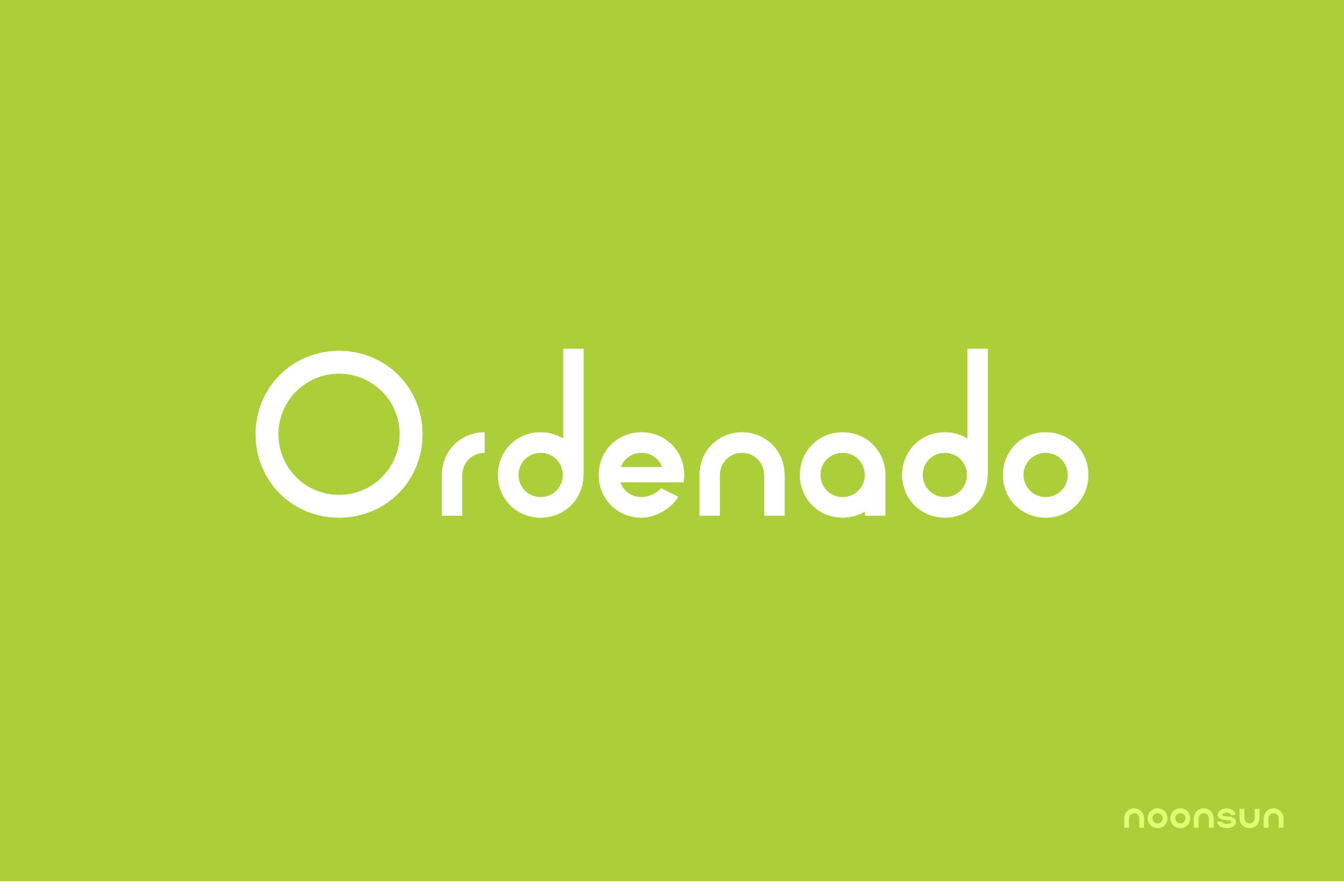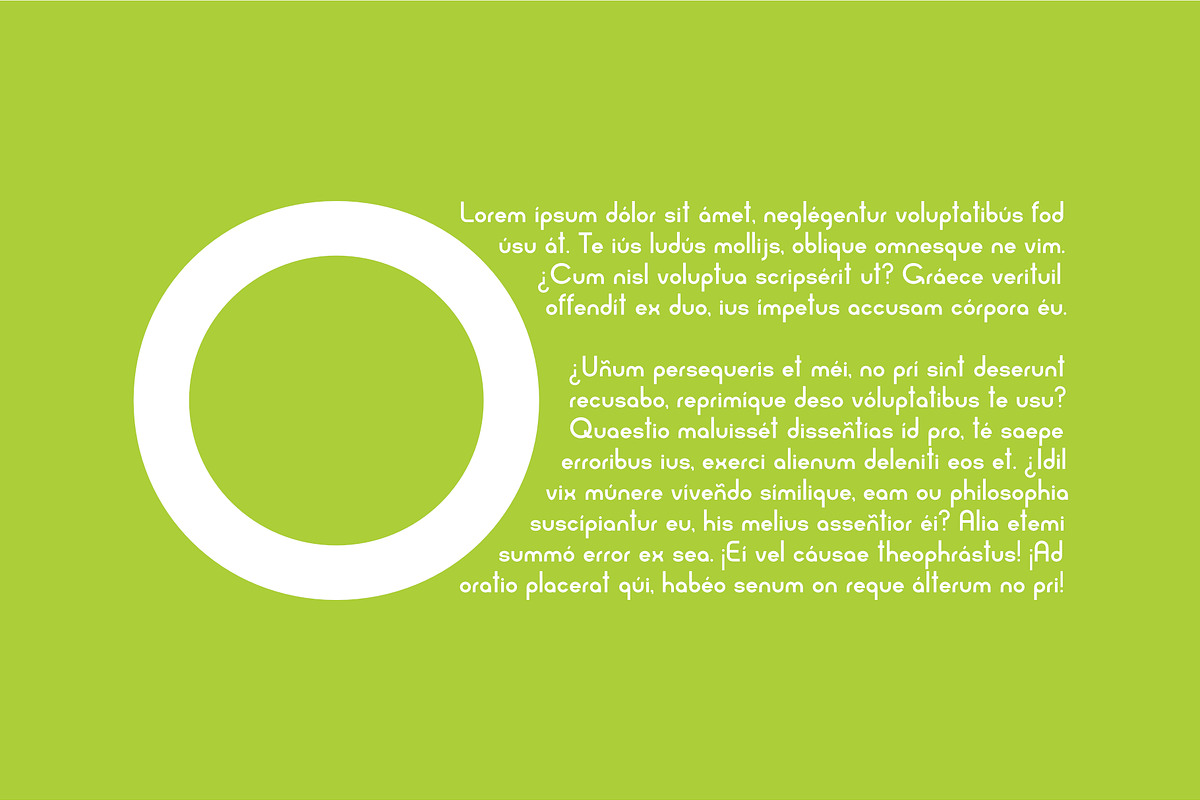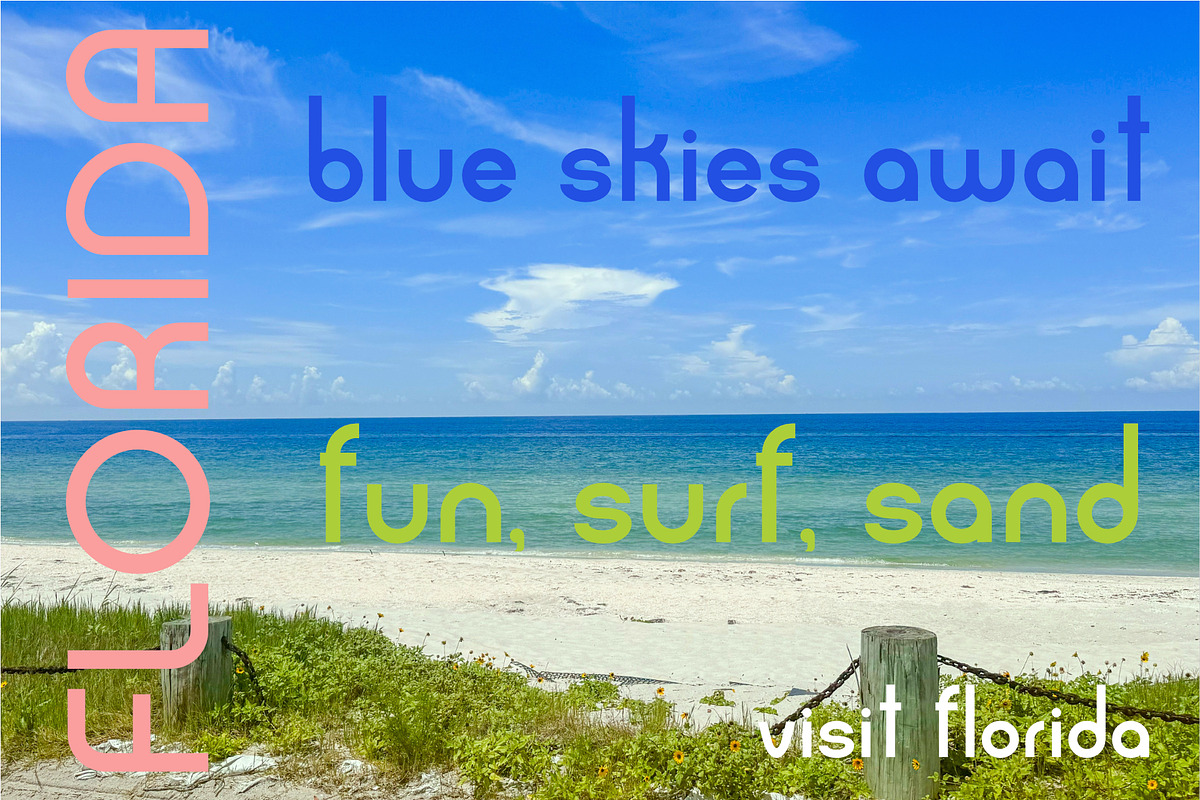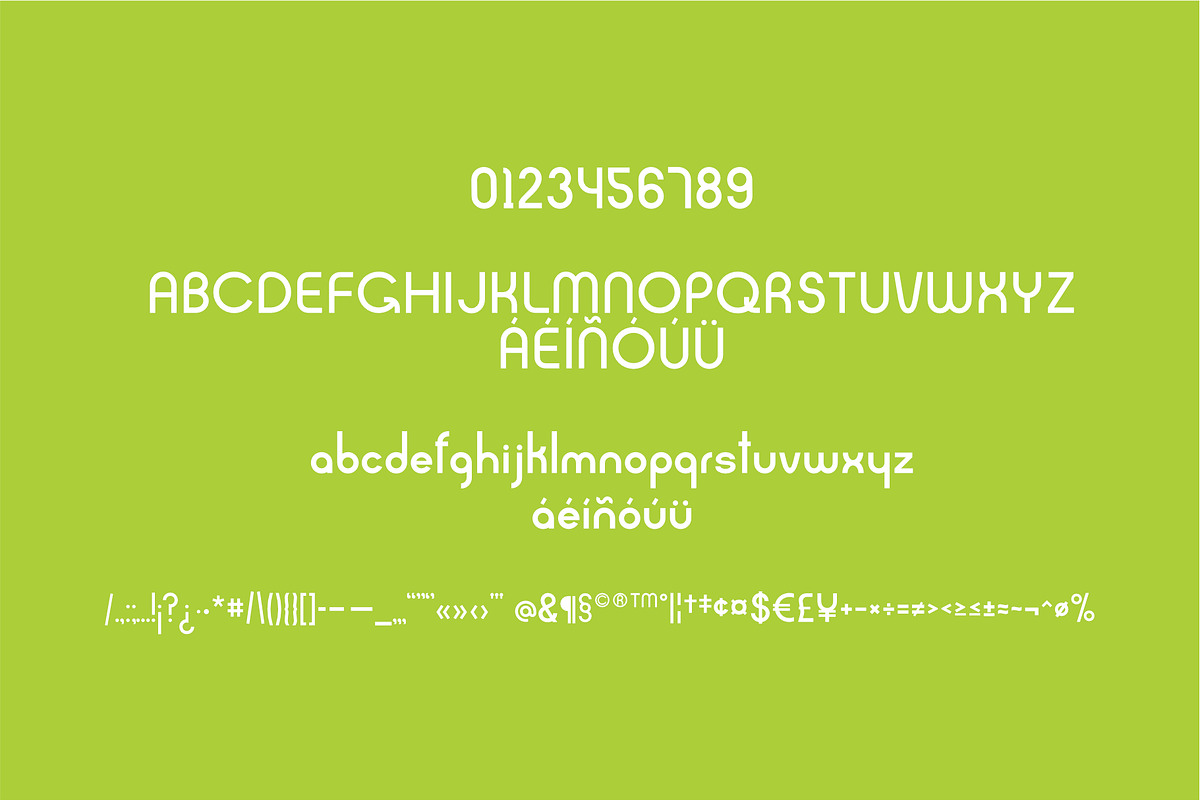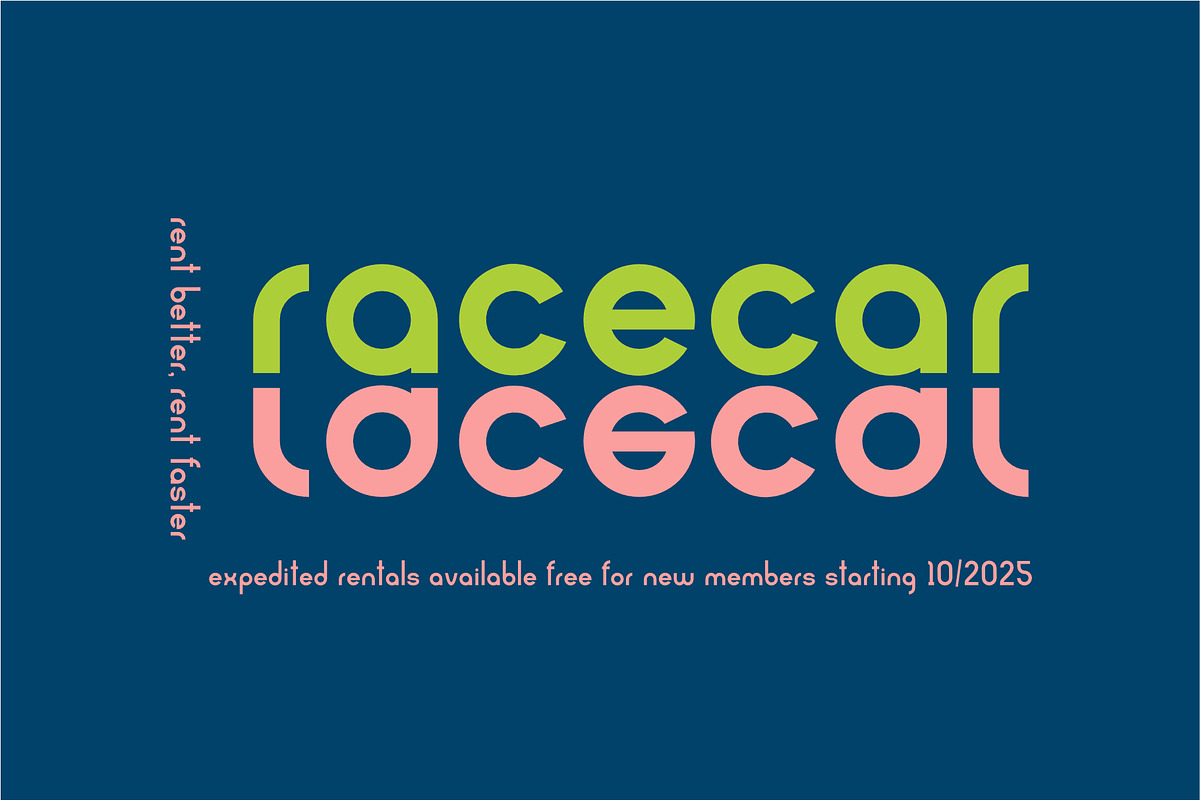
Ordenado Font - Round San Serif
Ordenado is a san serif font perfect for orderly uses. It's form is based on a ring for a contemporary feel. The open space help create a dynamic structure that goes well in mid-century designs to something with a more futuristic feel.
This font includes english and spanish glyphs as well as punctuation. The font comes in an otf file.